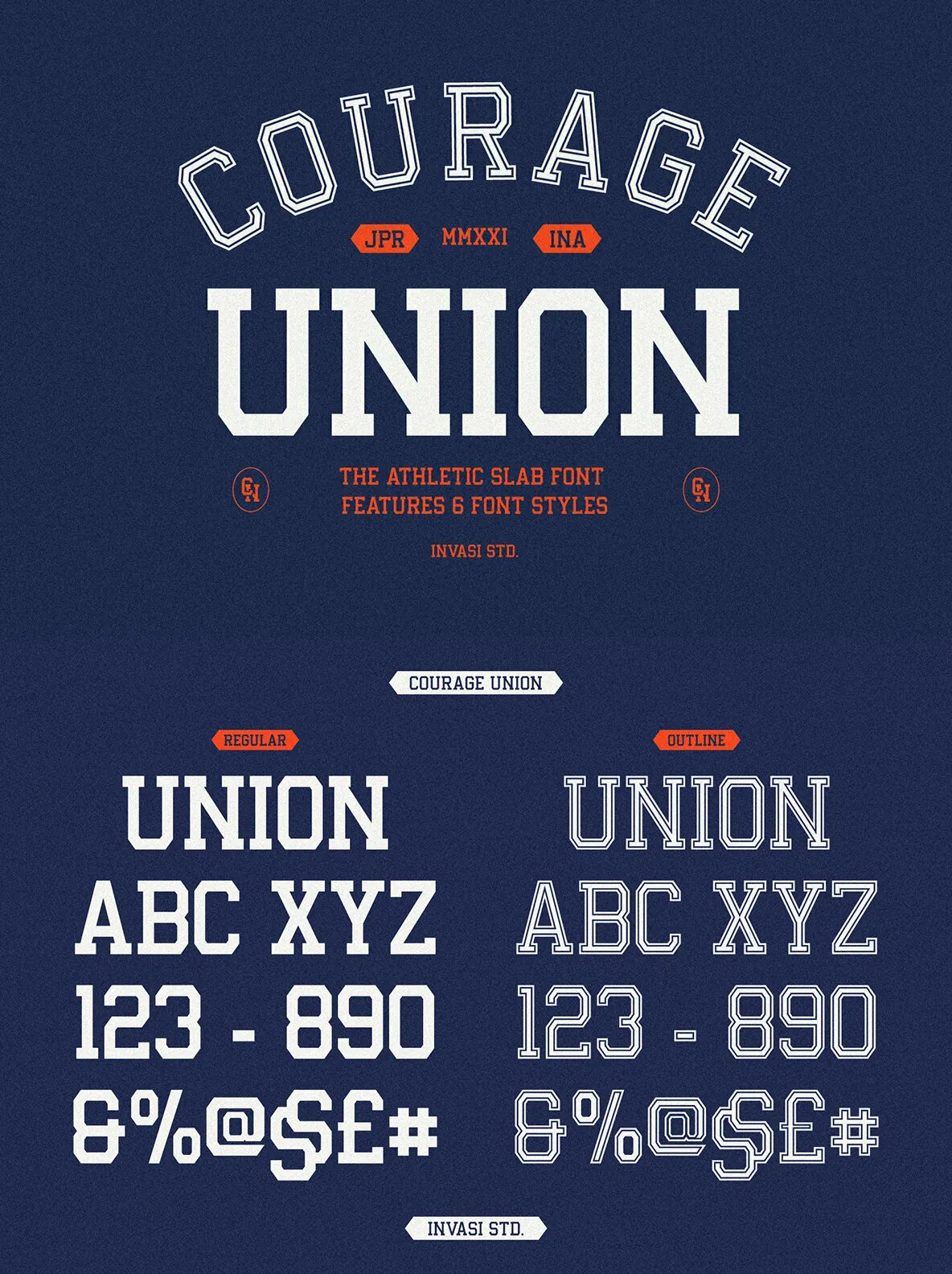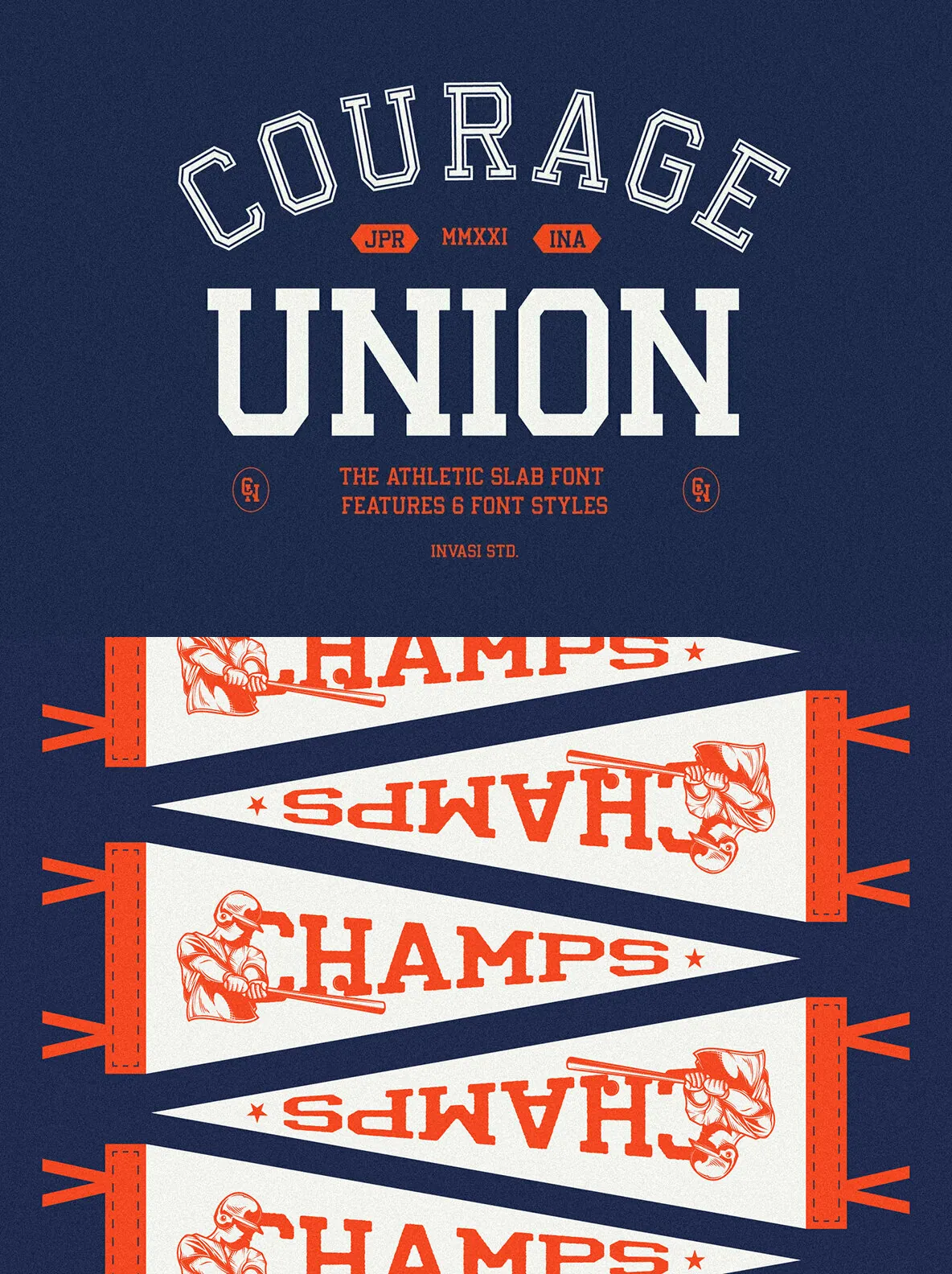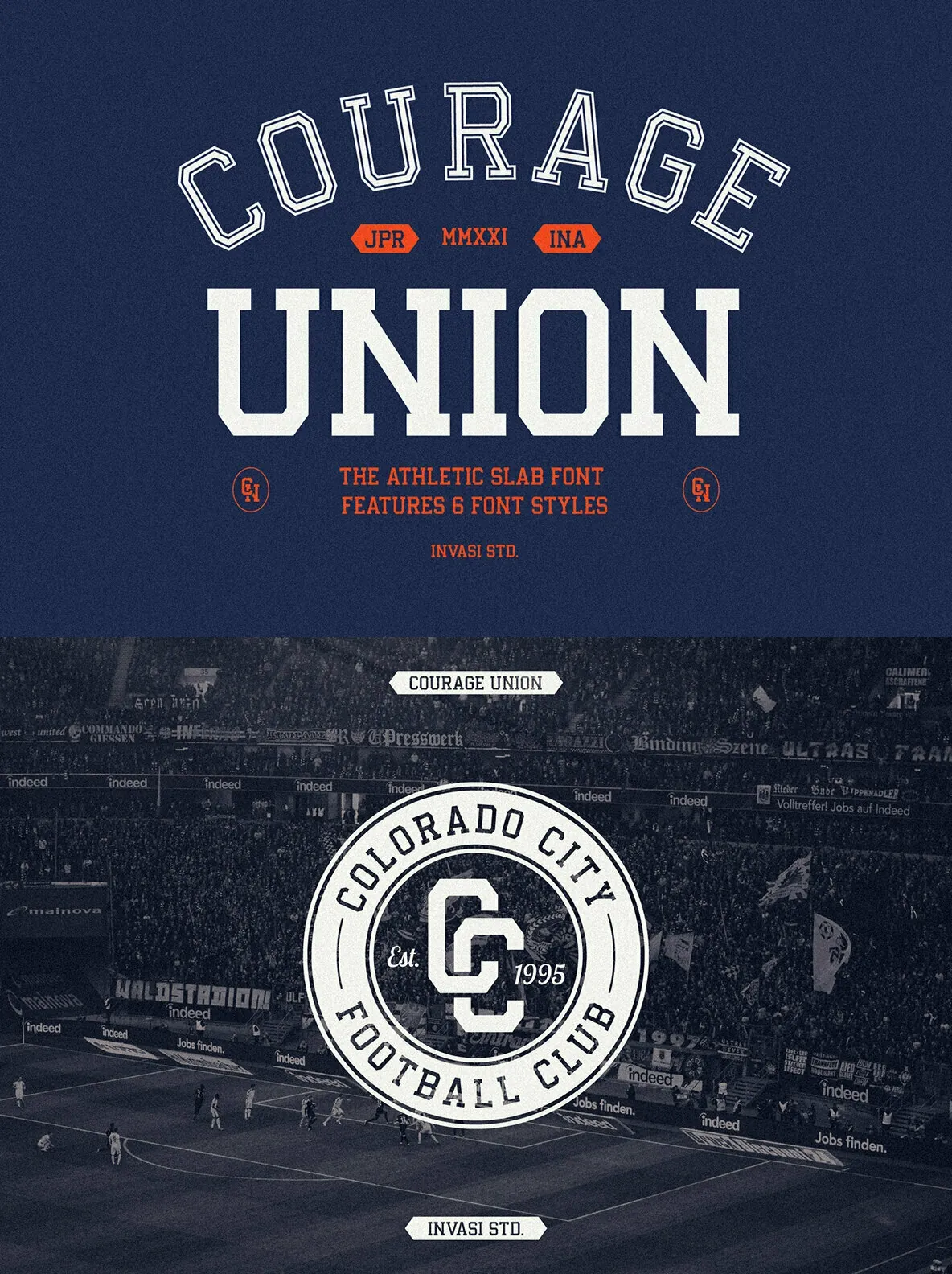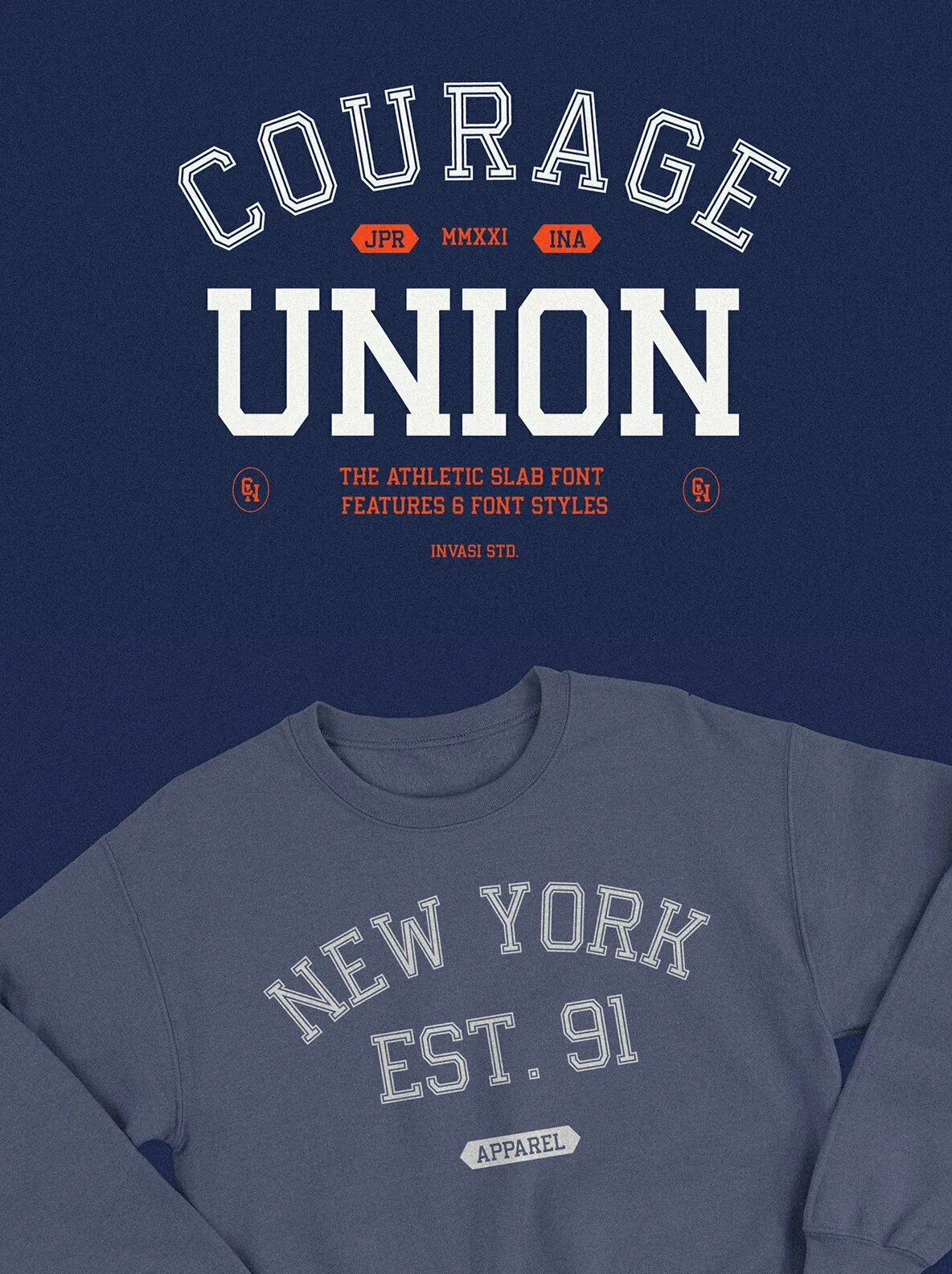
Courage Union — Serif with Steady Authority
Courage Union is a serif font design published by Invasi Studio.
Designed for design-led branding and editorial work, Courage Union brings a confident serif presence to headlines, layouts, and typographic systems. Its straightforward naming and clear authorship make it easy to specify in professional font libraries and production workflows, while the serif classification supports readable, classic typography across print and digital contexts.
Courage Union is published by Invasi Studio. It suits projects that call for a serif font with a composed, dependable tone, where type choice needs to feel intentional and well-considered from first glance to final output.